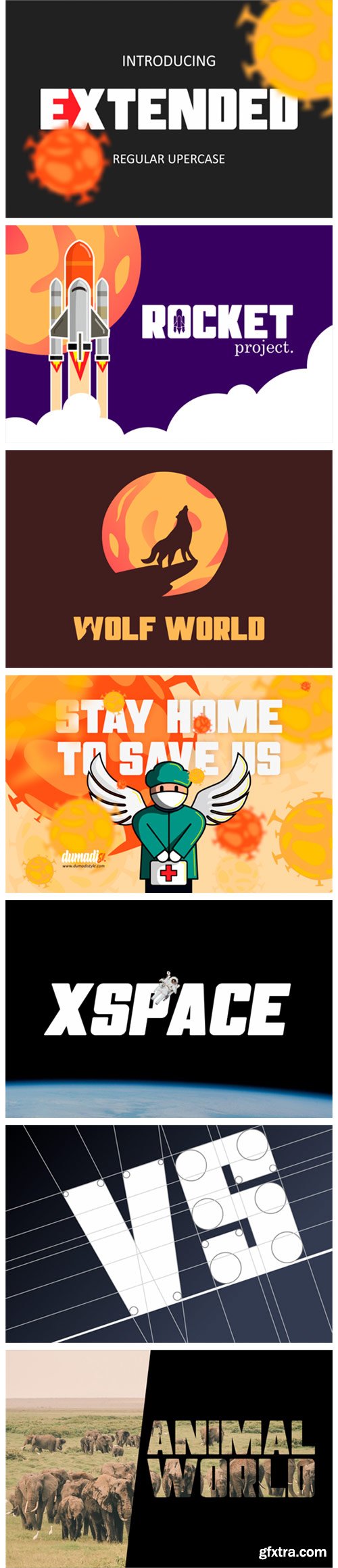
Extended Font
Extended is a strong and stunning display font. With its neat and beautiful arrangement of letters, this typeface will look outstanding in both formal and non-formal designs.